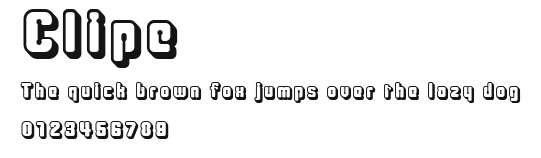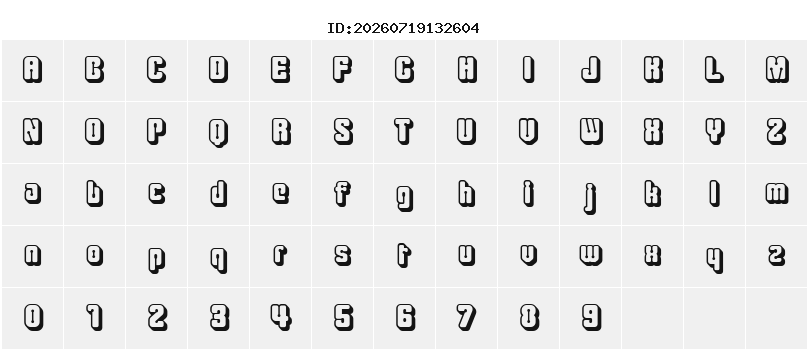
• Font Name: Clipe
• Font Style: Shadow
• Font ID: Macromedia Fon￿ographer 4.1J Clipe Shadow
• Full Font Name: Clipe Shadow
• Version: Macromedia Fon￿ographer 4.1J 00.3.31
• PostScript Name: ClipeShadow
• Character Count: 110
• Copyright: Copyrigh￿(R) : 1999 Crea￿ion all righ￿s reser￿ed. Clipe‐Shadow. Designed by Masa￿o Shimojima : Design s￿udio Crea￿ion.
About Clipe.ttf
Clipe.ttf is a modern, elegant sans-serif font designed for ultimate readability and visual harmony. Perfect for branding, headlines, web design, and print materials.